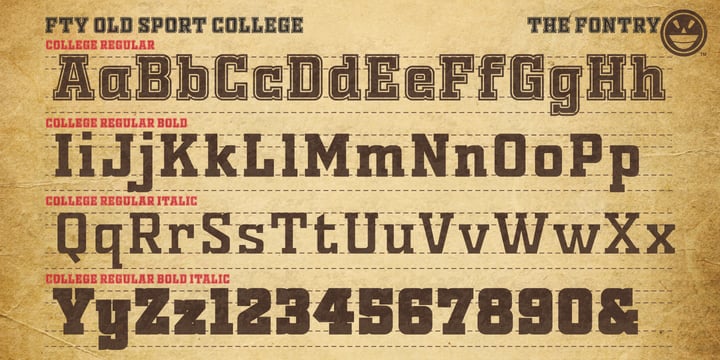
Fty OLD SPORT
La familia tipográfica Fty OLD SPORT fue diseñada por Michael Gene Adkins y publicada por The Fontry. Fty OLD SPORT contiene 6 estilos y opciones de paquete familiar.
Beyond the halls of the ivy league, a vintage sport font from the days of old. A complete family for all of your layout needs. Includes a layered COLLEGE effect to stack up and command those team colors.